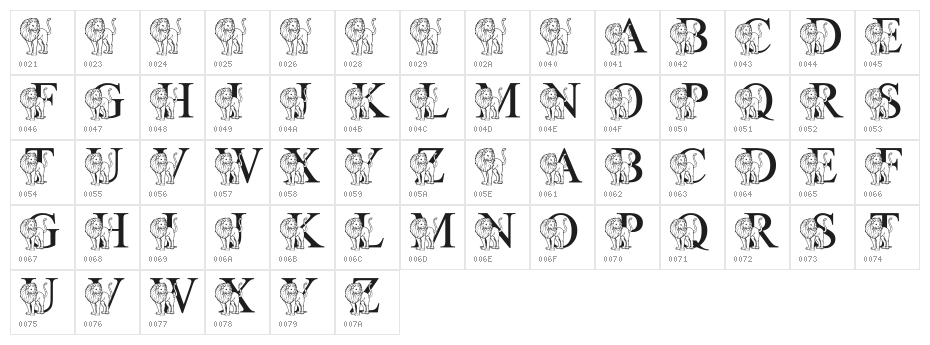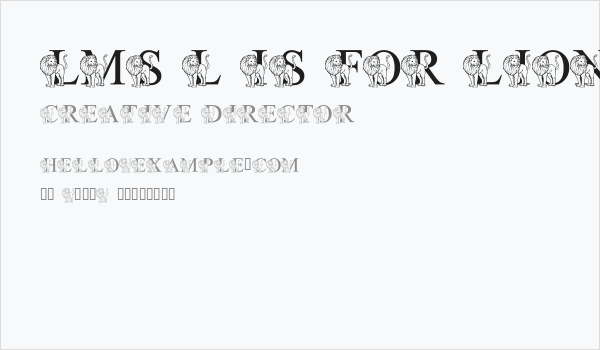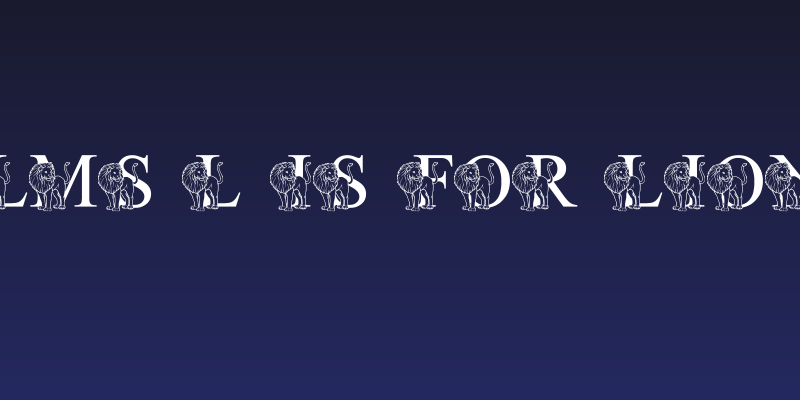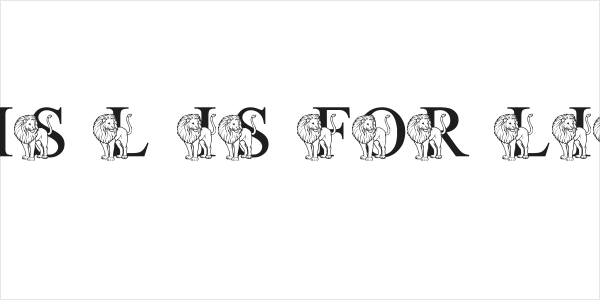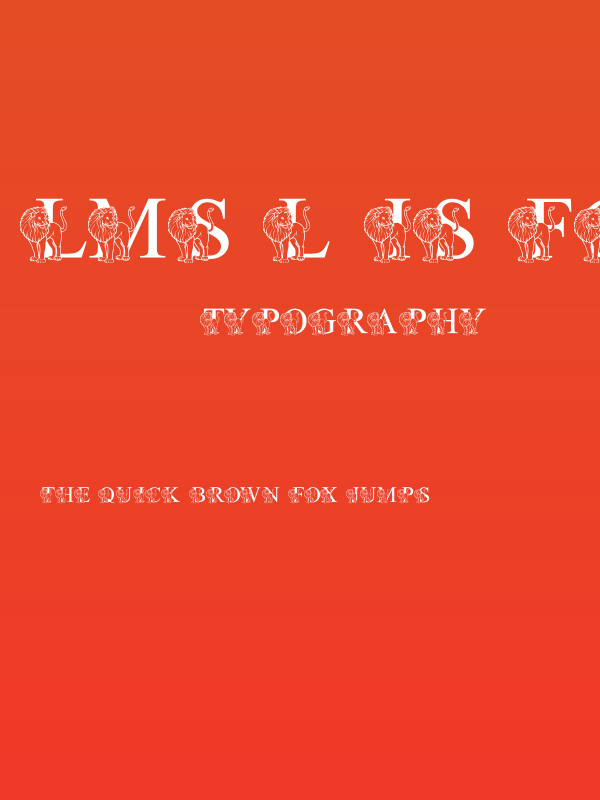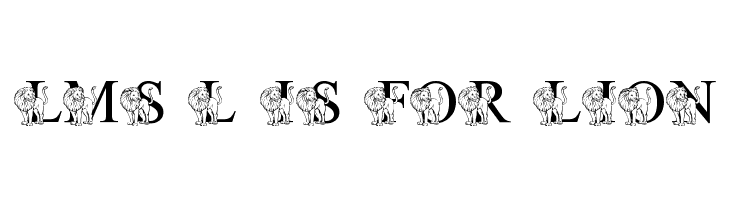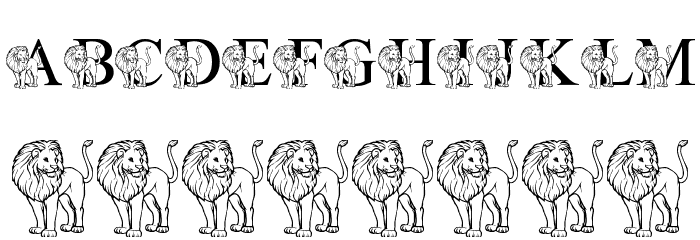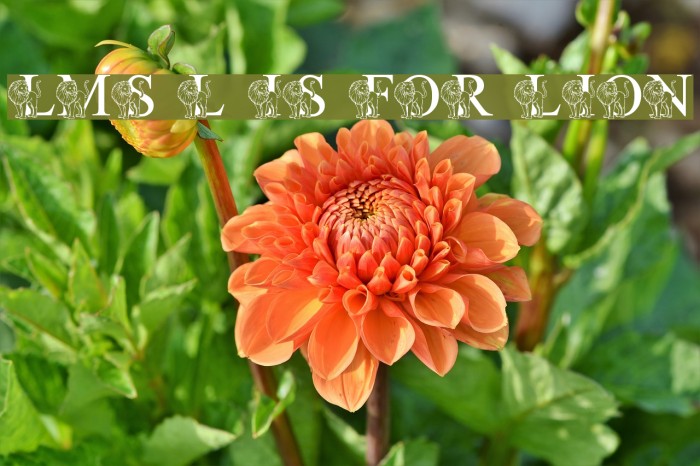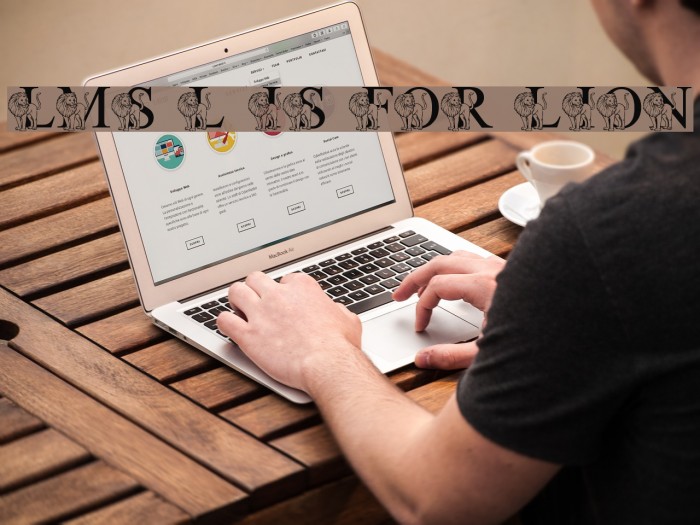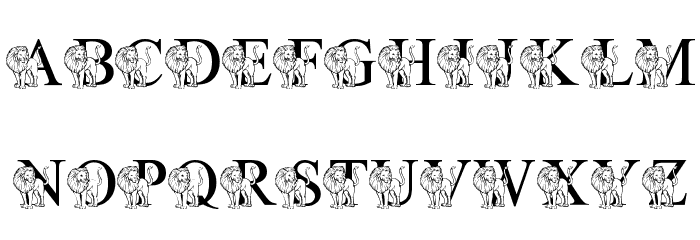
LMS L Is For Lion Font
This font features a unique and playful design where each letter is accompanied by a detailed illustration of a lion. The letters themselves are bold and serif, providing a strong and classic appearance. The integration of the lion graphic adds a whimsical and decorative touch, making the font ideal for creative and child-friendly projects. The combination of traditional serif elements with the playful lion motif creates a distinctive style that stands out. The font maintains a consistent design across both uppercase and lowercase letters, ensuring a cohesive look.
| Overall Style | Playful, Decorative |
| Use Case | Headlines, Logos, Children's materials |
| Proposed Projects | Ideal for children's books, educational materials, playful branding, and decorative headings. |